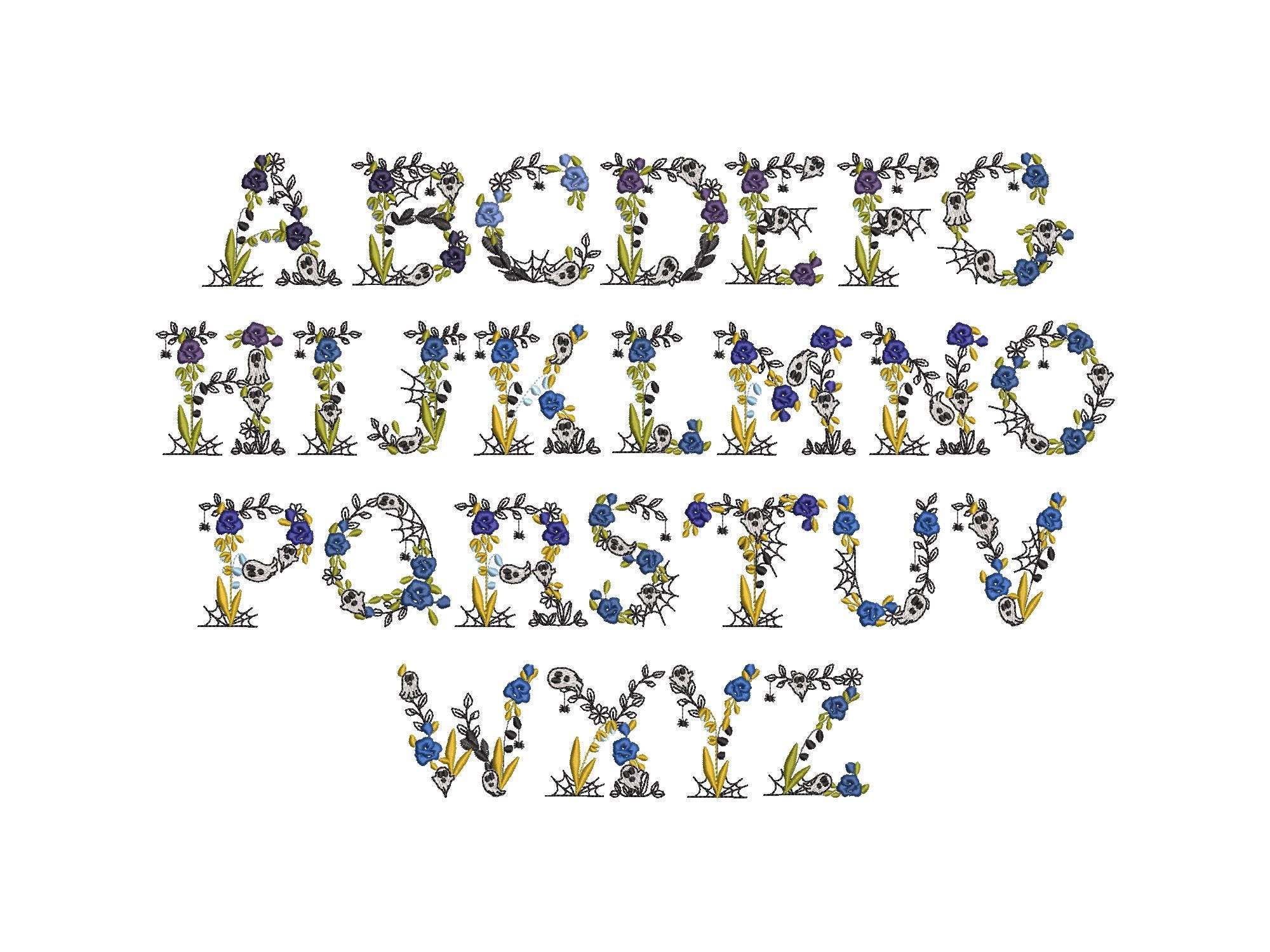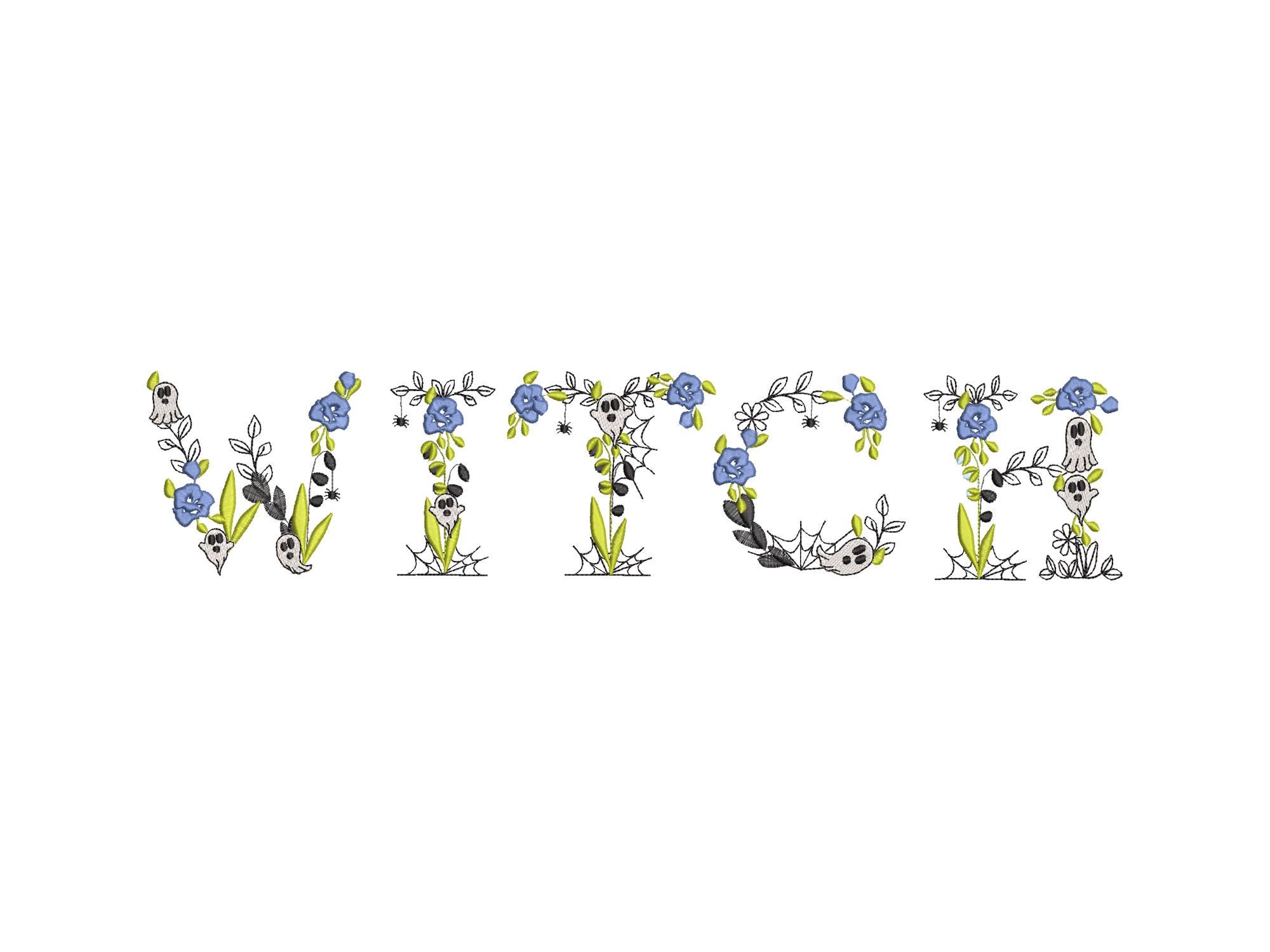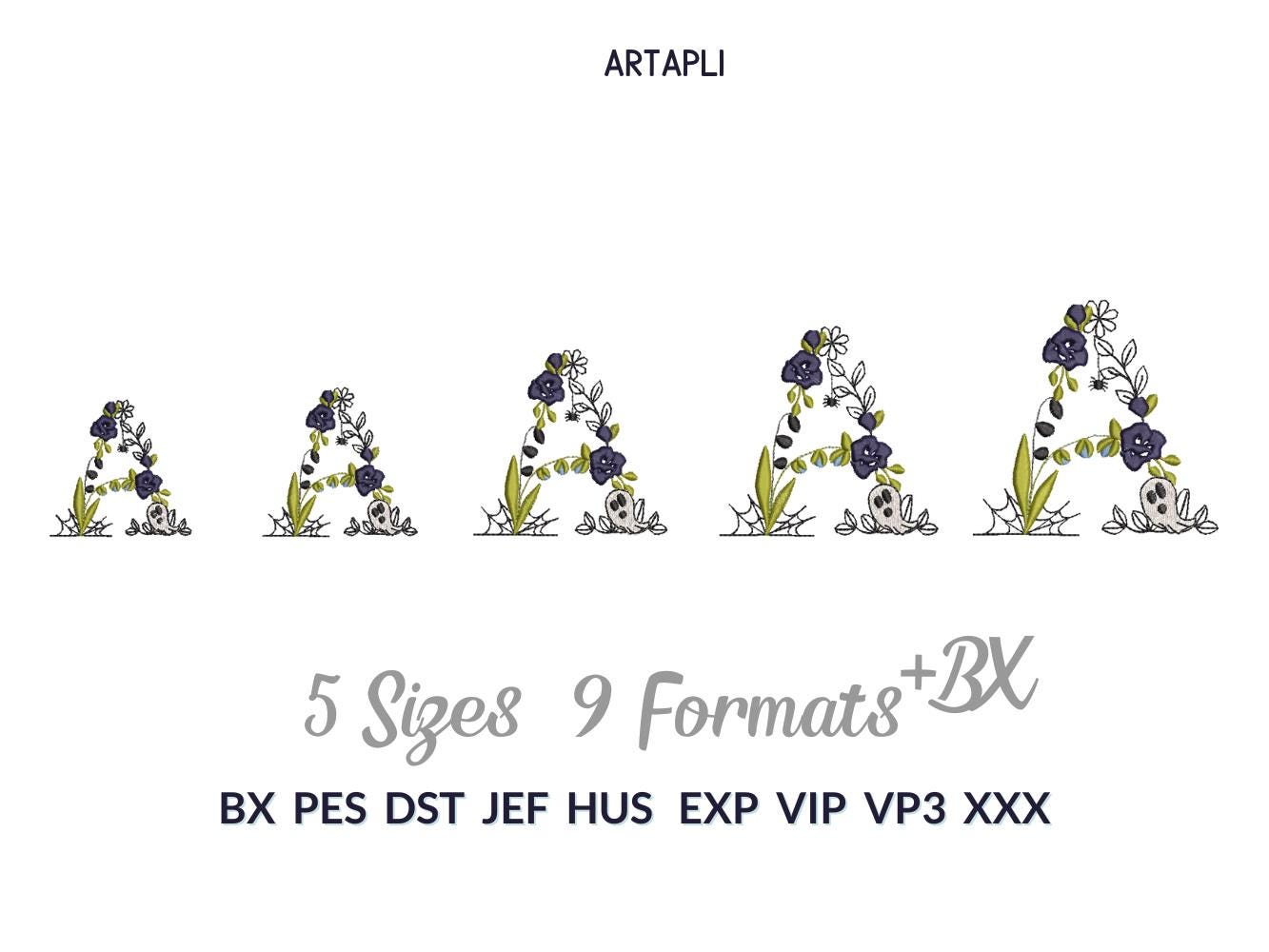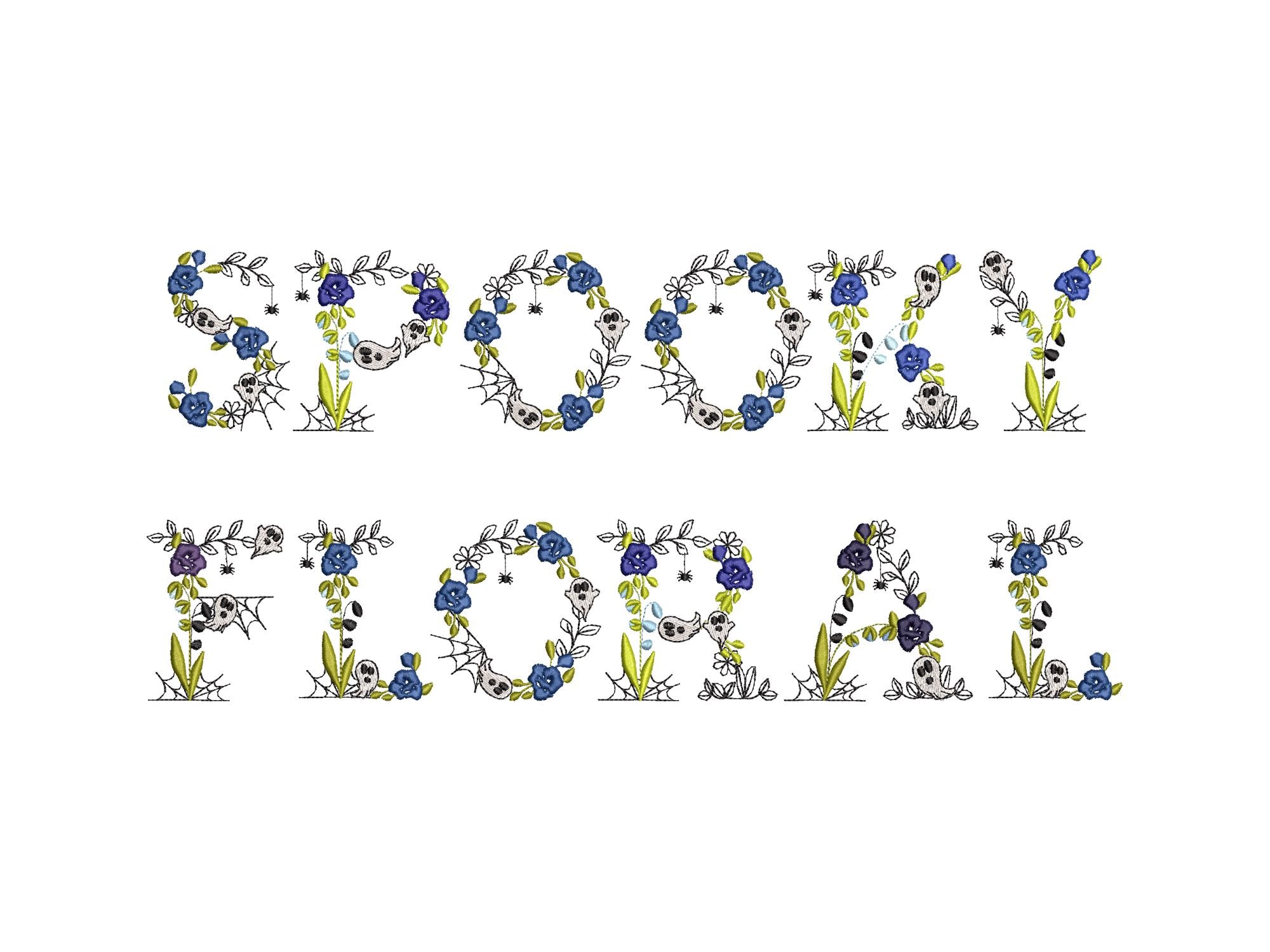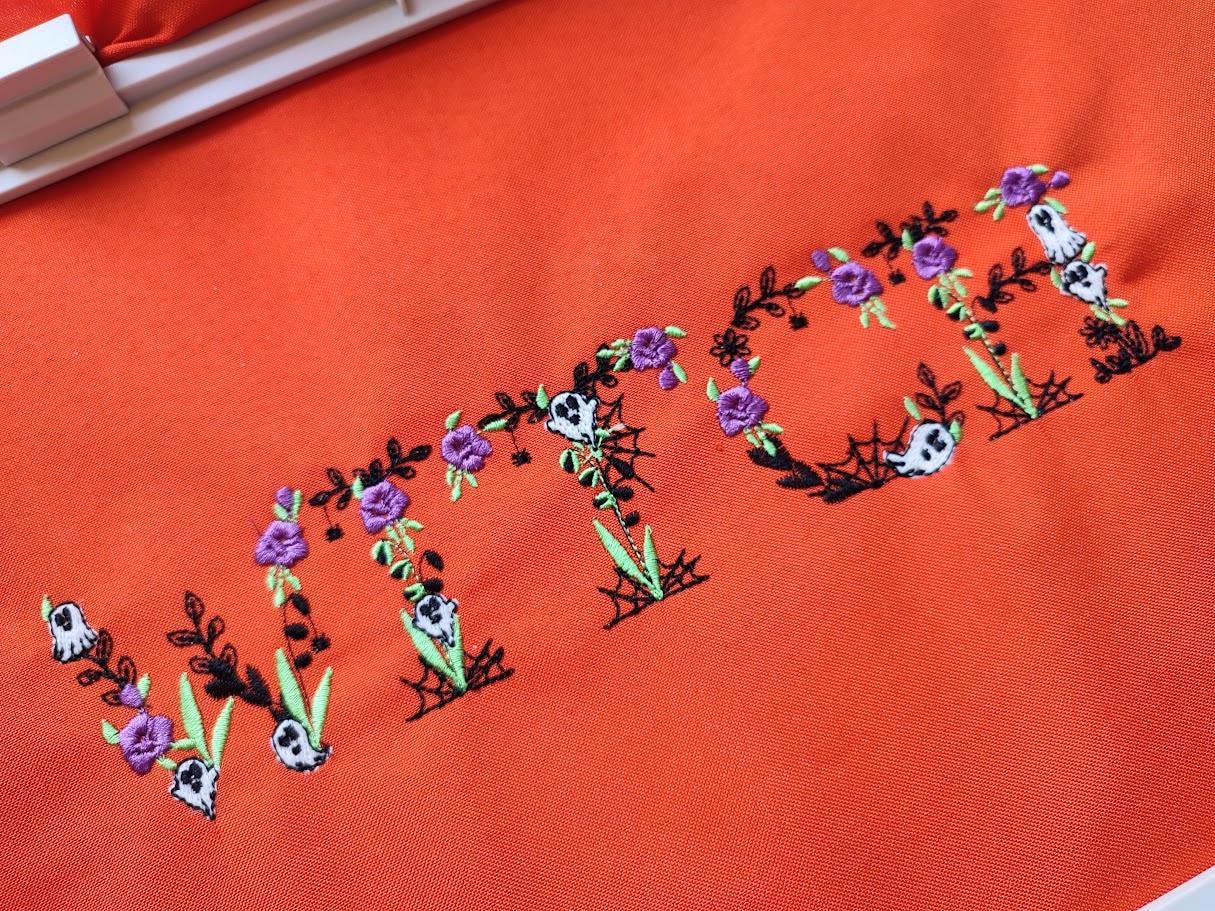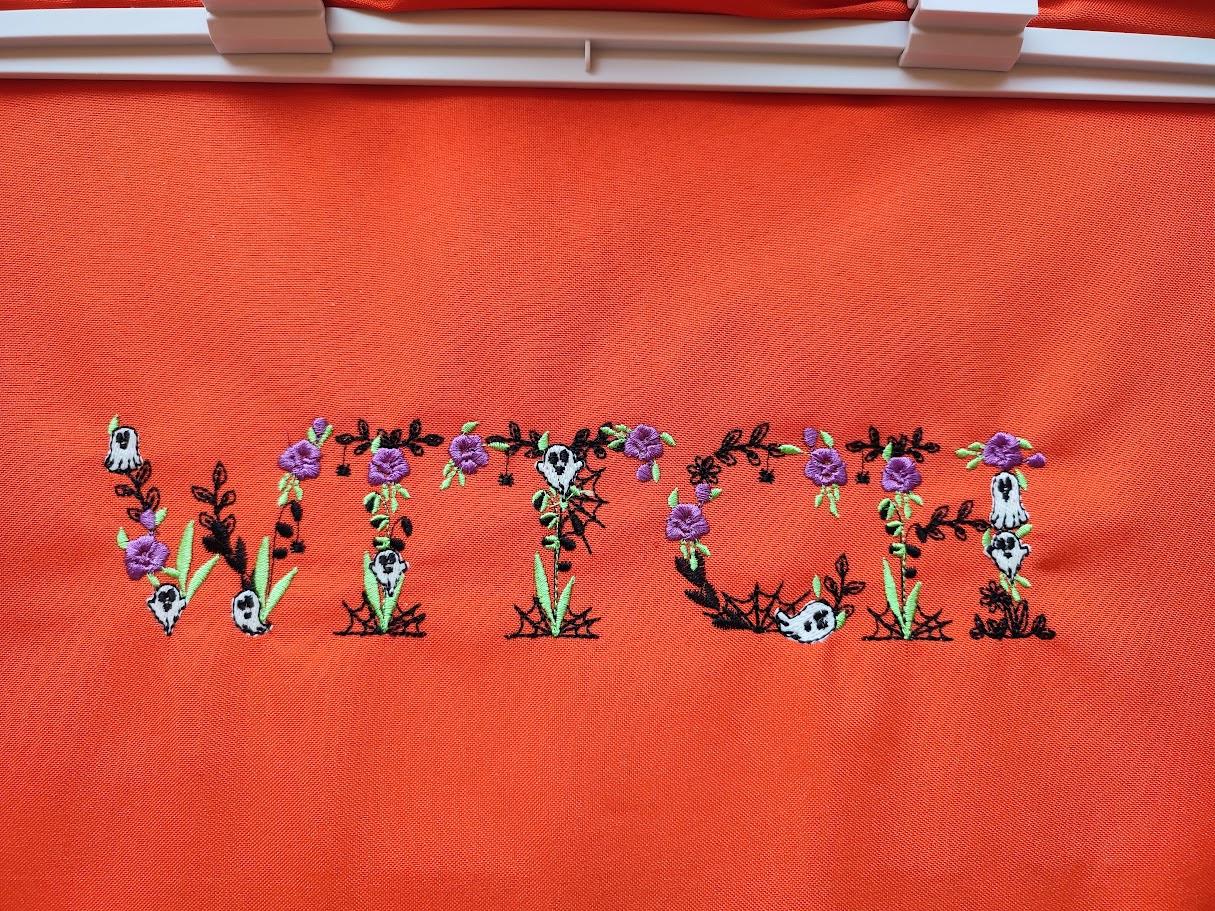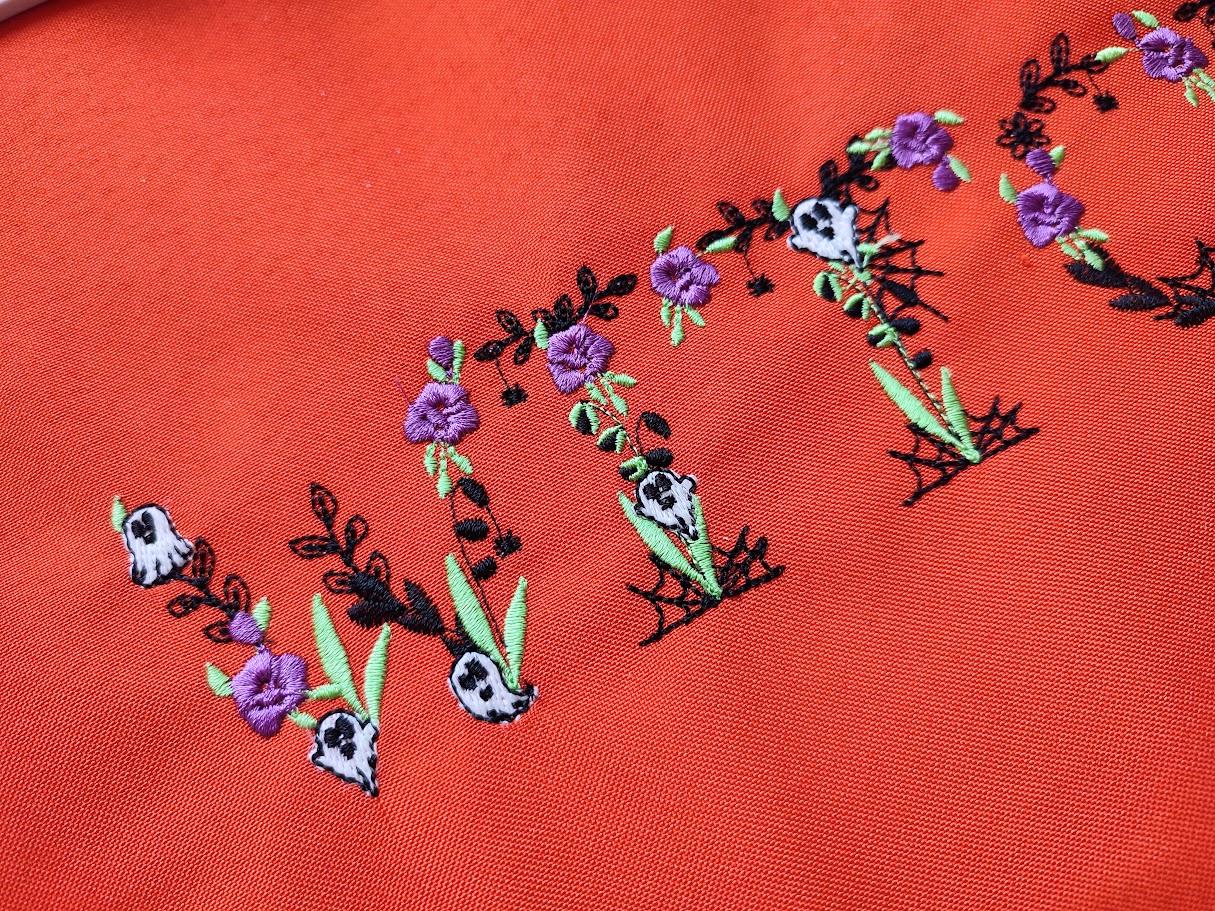
Halloween Spooky Floral Font ghost spider web Boo alphabet cobweb scary letters rose flower machine embroidery designs multiple sizes from 2.2 up to 3.7 inches
Whole alphabet A-Z uppercase letters.
This is a light stitch design. The background fabric looks through. Stunning effect!